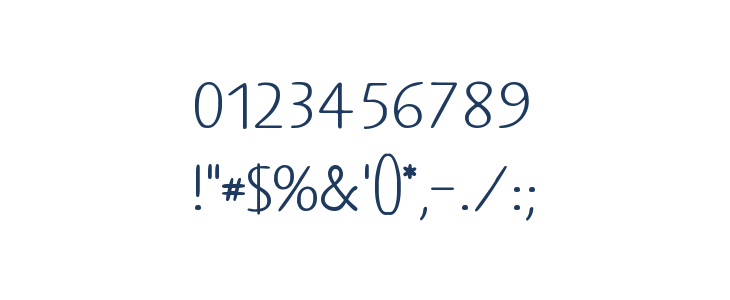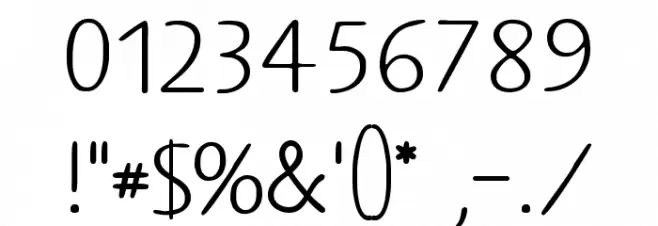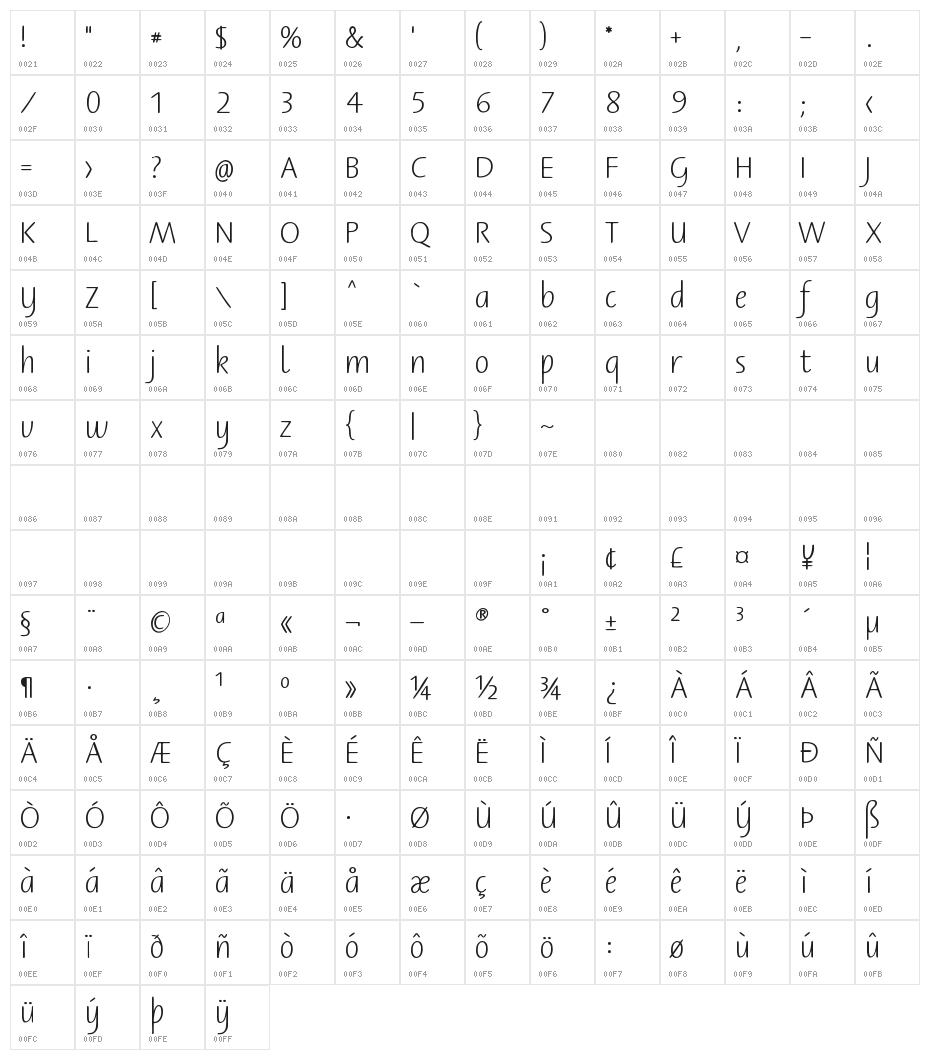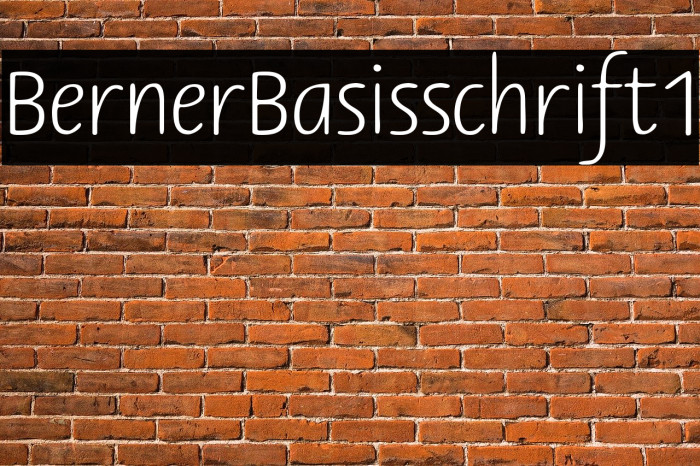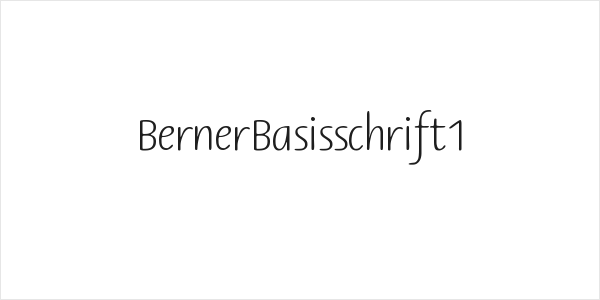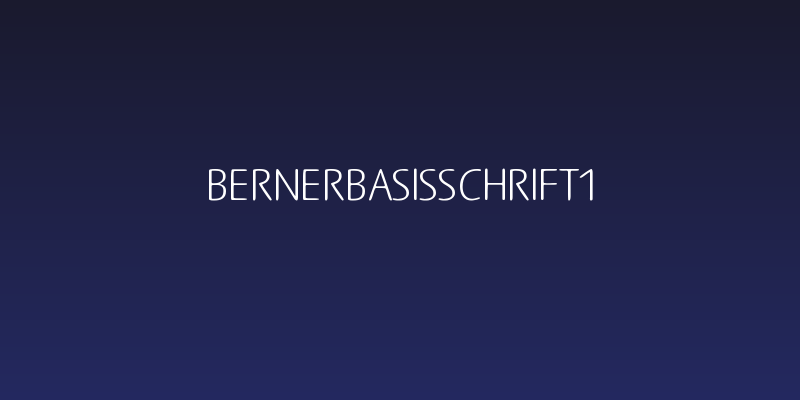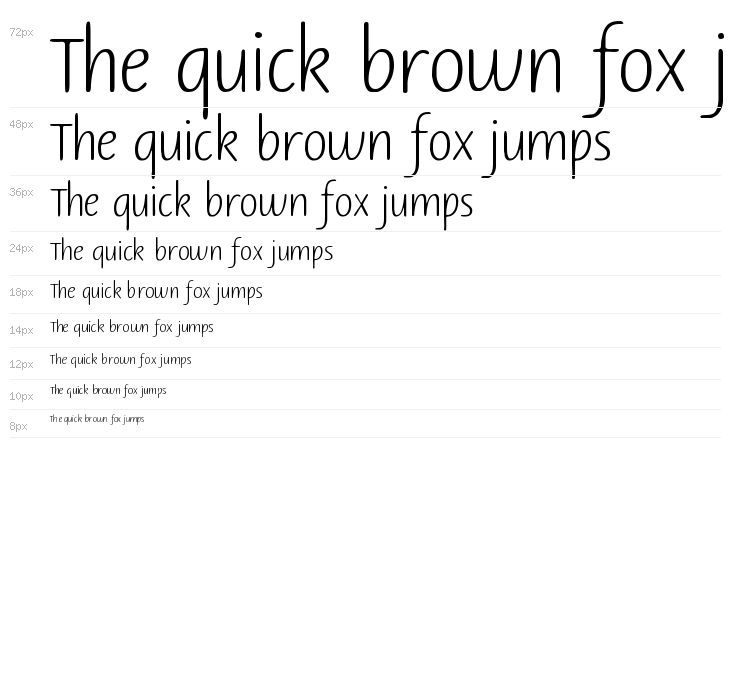
BernerBasisschrift1 Font
BernerBasisschrift1 Description
This font features a clean and simple design with a focus on readability. The characters are slightly rounded, giving them a friendly and approachable appearance. The strokes are consistent in width, providing a uniform look across all characters. The uppercase letters are tall and slightly narrow, while the lowercase letters maintain a balanced proportion. The numerals are clear and distinct, making them easy to read. Special characters are well-integrated, maintaining the overall style of the font. This font is versatile and can be used in various contexts where clarity and simplicity are desired.
| Use Case | Body text, Educational materials, User interfaces |
| Proposed Projects | Ideal for educational materials, children's books, signage, and user interfaces. |